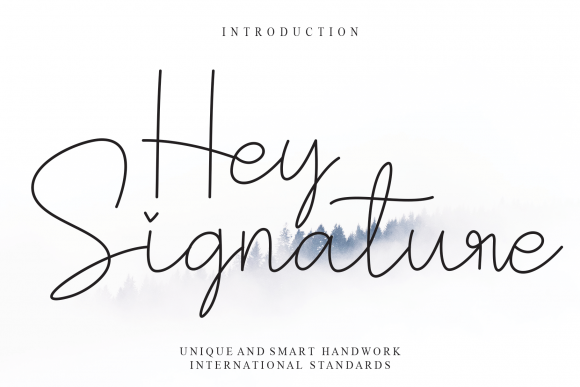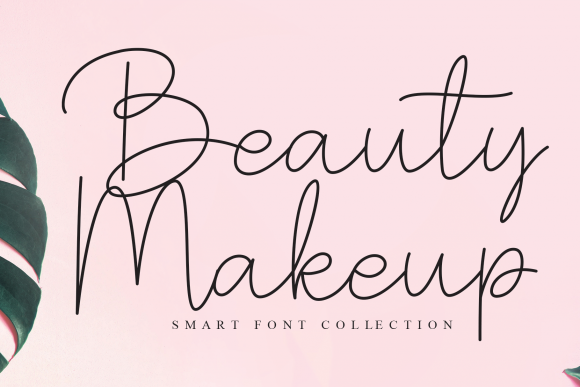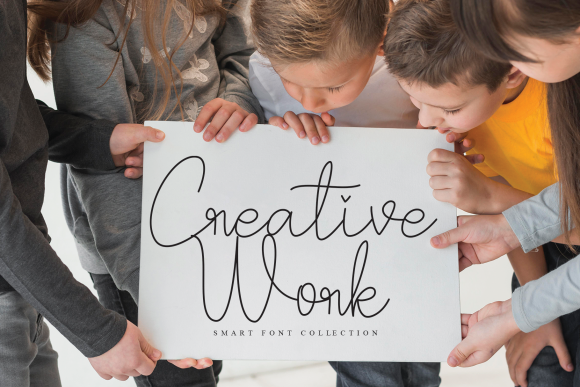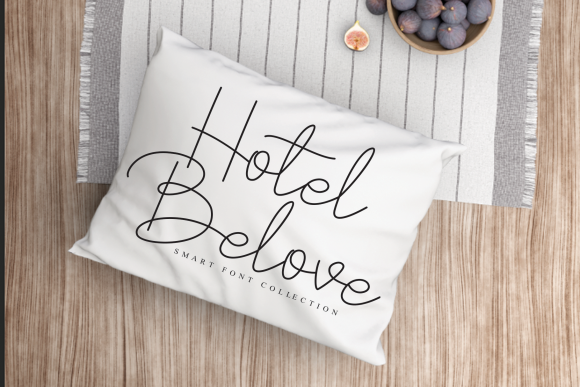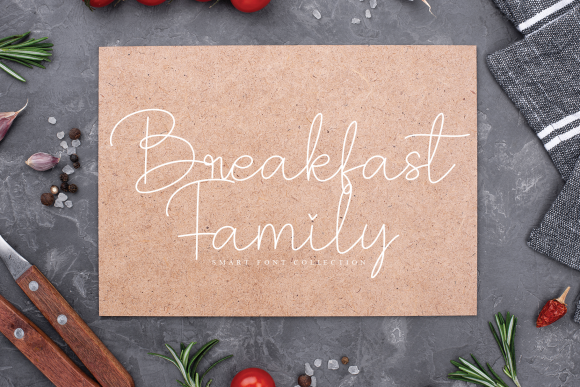
Hey Signature Font
About Hey Signature Font
Hey Signature is a delicate and thin handwritten font. Its distinct and flowing letters make this font a masterpiece. Fall in love with its incredibly versatile style and use it to create spectacular designs!